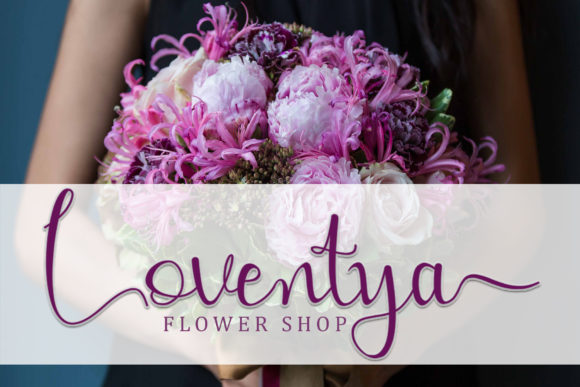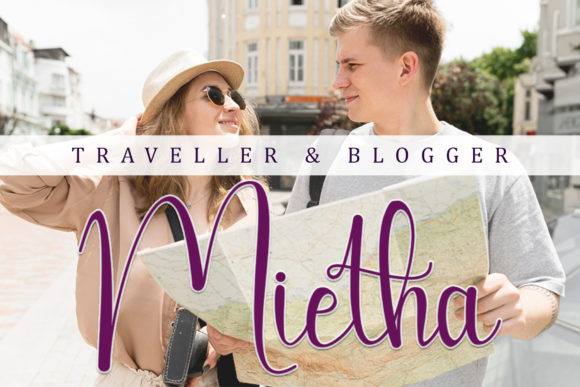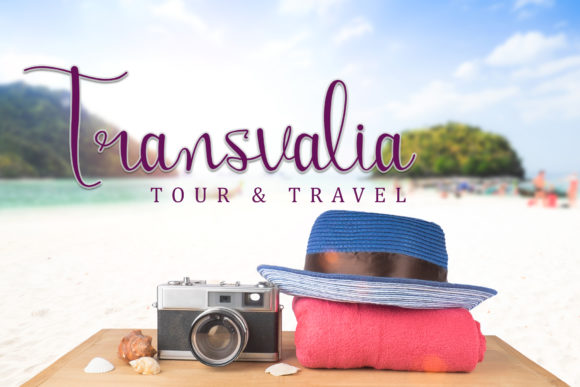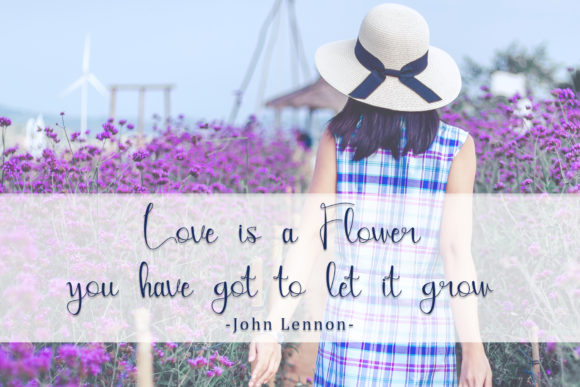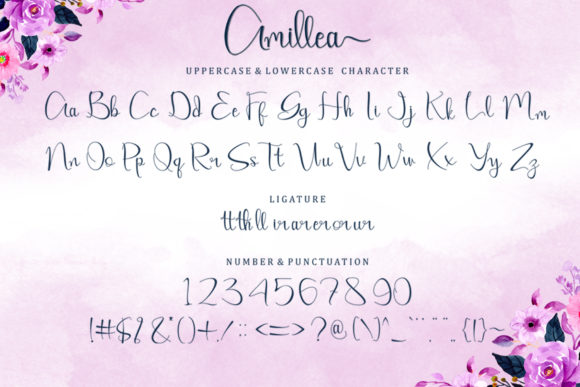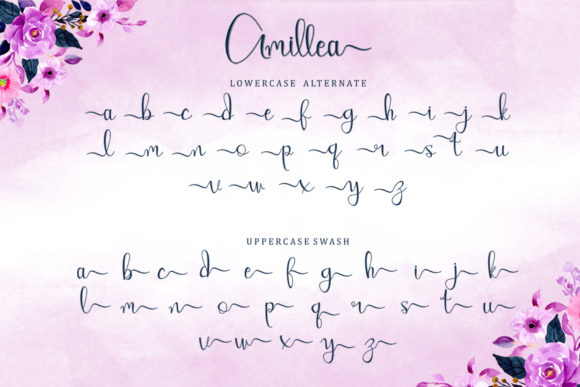
Introducing Amillea Font: A Modern Calligraphy Handwritten Masterpiece
In the world of typography, fonts play a crucial role in conveying emotions and setting the tone for various design projects. For designers and crafters looking for a unique and versatile script font, Amillea Font is an excellent choice. This modern calligraphy handwritten font has gained popularity for its stunning swashes, ligatures, and user-friendly features.
What Makes Amillea Font Stand Out?
Amillea Font is a modern script font that boasts a beautiful, handwritten look with elegant swashes and ligatures. Its versatility makes it suitable for a wide range of design projects, from wedding invitations and branding materials to social media graphics and digital crafts. The font’s gorgeous swashes and ligatures add a touch of sophistication and elegance to any design.
Key Features of Amillea Font
- PUA Encoding: Amillea Font is PUA (Private Use Area) encoded, which means that accessing the font’s extensive range of glyphs and swashes is easy and straightforward. This feature allows designers to work efficiently and creatively.
- Alternate Glyphs and Ligatures: The font comes with a wealth of special features, including alternate glyphs and ligatures. These features provide designers with numerous options for customizing their text and making it more visually appealing.
- Swashes and Ornaments: Amillea Font features a variety of swashes and ornaments that can be used to add a decorative touch to designs. These swashes and ornaments can be used to create beautiful headings, titles, and text elements.
Why Designers and Crafters Love Amillea Font
Designers and crafters appreciate Amillea Font for its flexibility and ease of use. The font’s PUA encoding and extensive range of glyphs and swashes make it easy to create unique and personalized designs. Additionally, the font’s compatibility with various design software and platforms makes it a convenient choice for professionals and hobbyists alike.
Use Cases for Amillea Font
Amillea Font is suitable for a wide range of design projects, including:
- Wedding Invitations and Stationery: The font’s elegant swashes and ligatures make it perfect for creating beautiful wedding invitations, stationery, and other wedding-related designs.
- Branding and Packaging: Amillea Font can be used to create stunning brand identities, packaging designs, and product labels.
- Social Media Graphics: The font’s versatility makes it suitable for creating engaging social media graphics, including Facebook posts, Instagram stories, and Twitter headers.
- Digital Crafts: Amillea Font can be used to create digital crafts, such as printable art, planners, and journals.
Tips for Getting the Most Out of Amillea Font
To get the most out of Amillea Font, designers and crafters can experiment with different font sizes, colors, and styles. Here are some tips:
- Experiment with Swashes and Ligatures: Try out different swashes and ligatures to add a unique touch to your designs.
- Mix and Match Font Sizes: Combine different font sizes to create visual interest and hierarchy in your designs.
- Play with Colors: Experiment with different colors and gradients to add depth and emotion to your designs.
Amillea Font is a modern calligraphy handwritten font that offers a unique blend of elegance and versatility. Its PUA encoding, alternate glyphs, and ligatures make it easy to use and customize. Whether you’re a designer or crafter, Amillea Font is an excellent choice for creating stunning designs that stand out. With its wide range of use cases and tips for getting the most out of the font, Amillea Font is sure to become a favorite in your design toolkit.